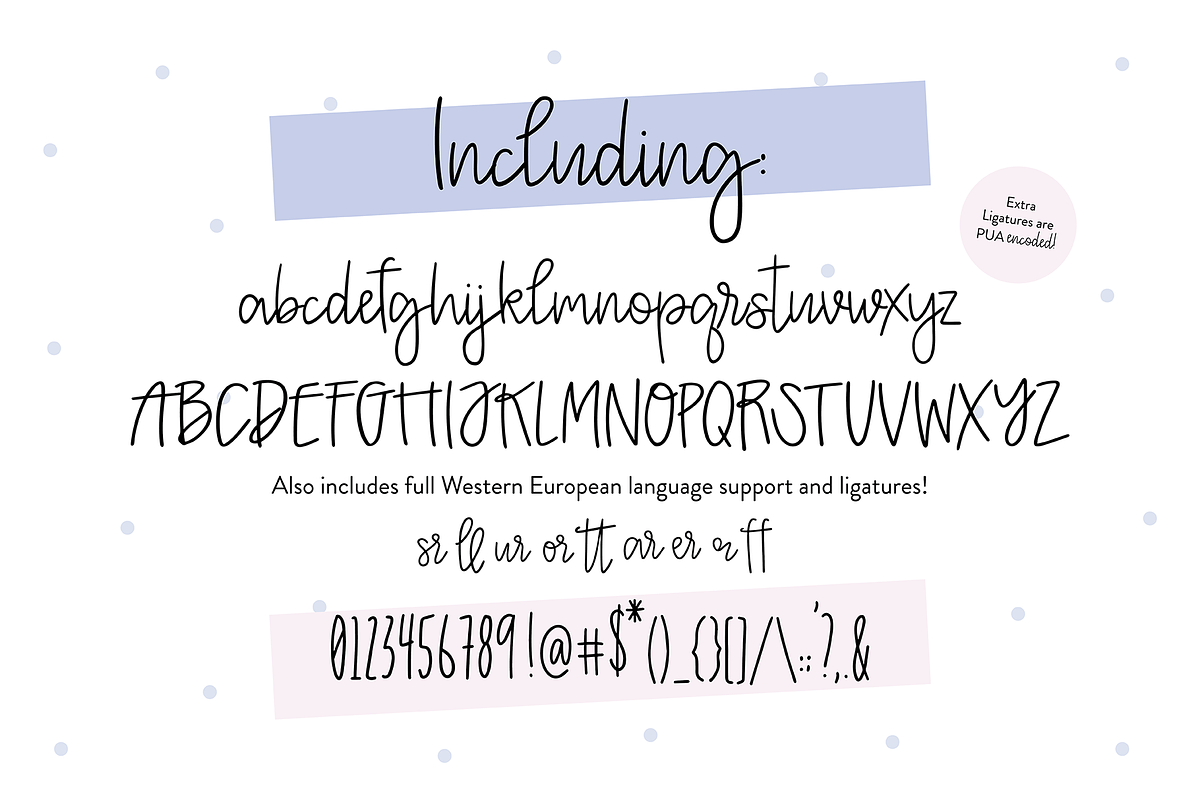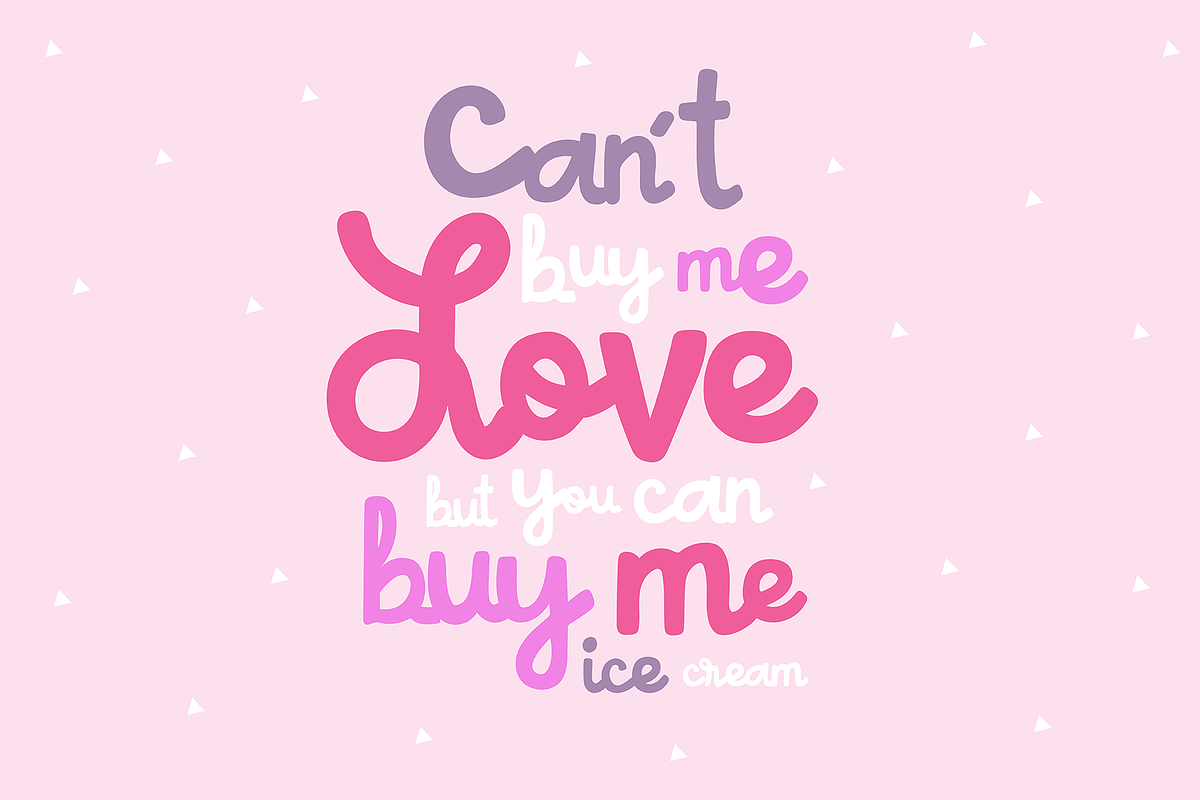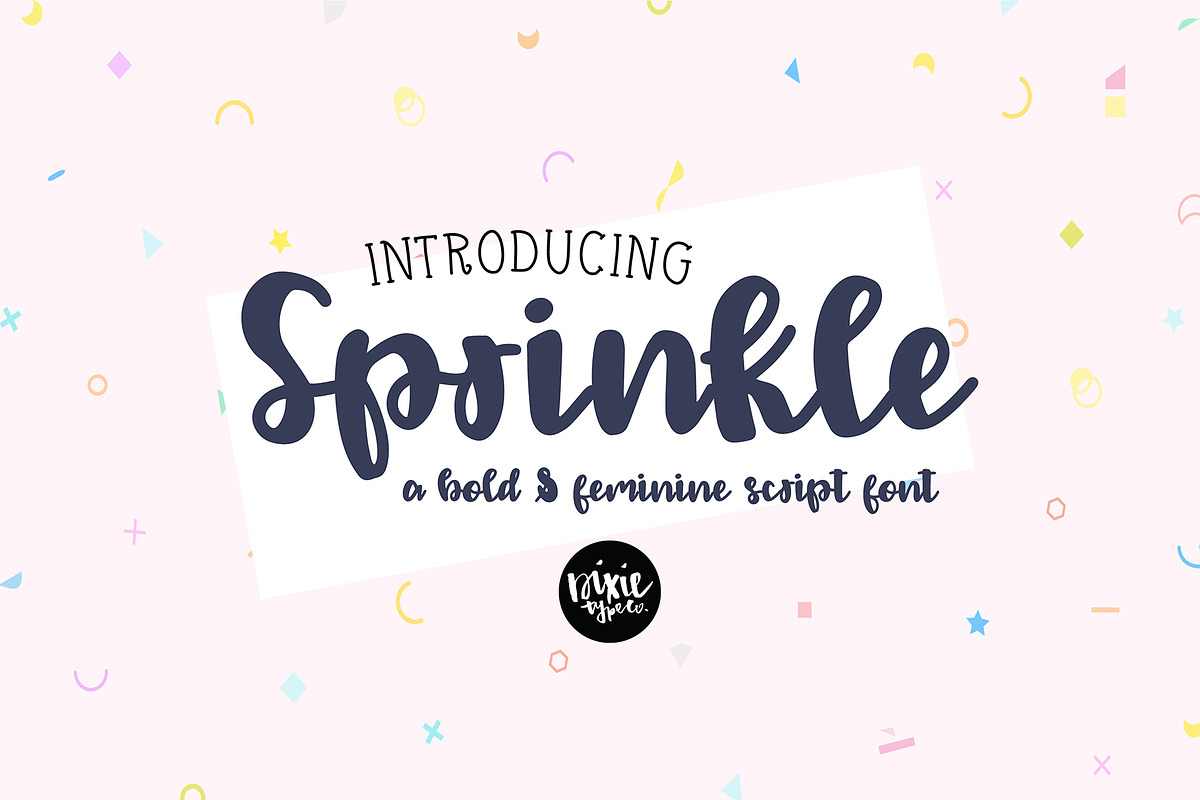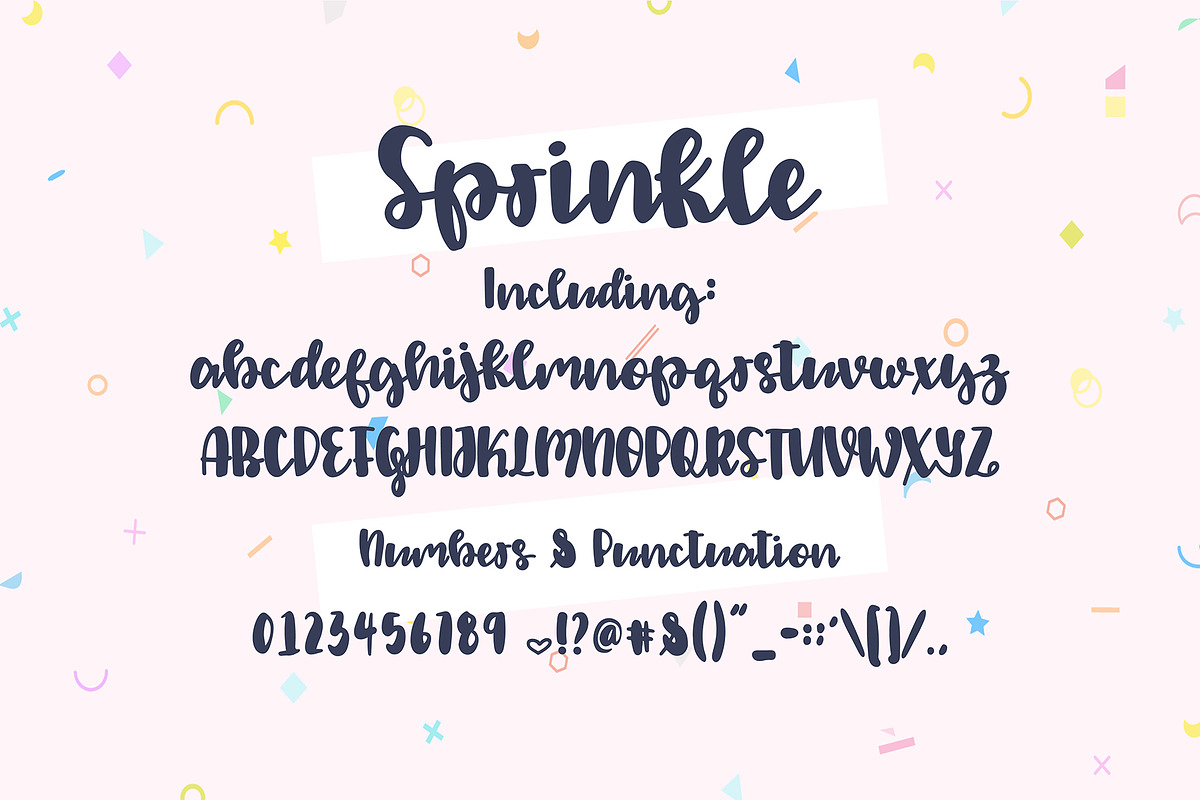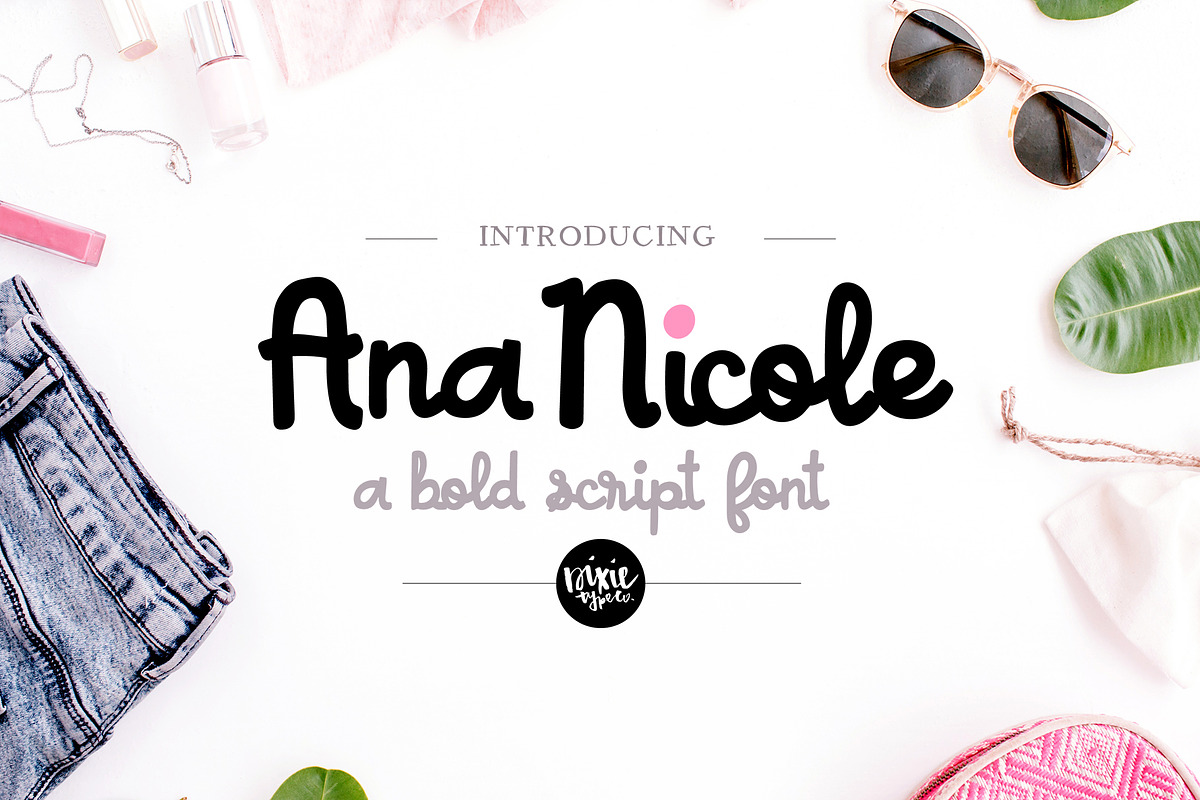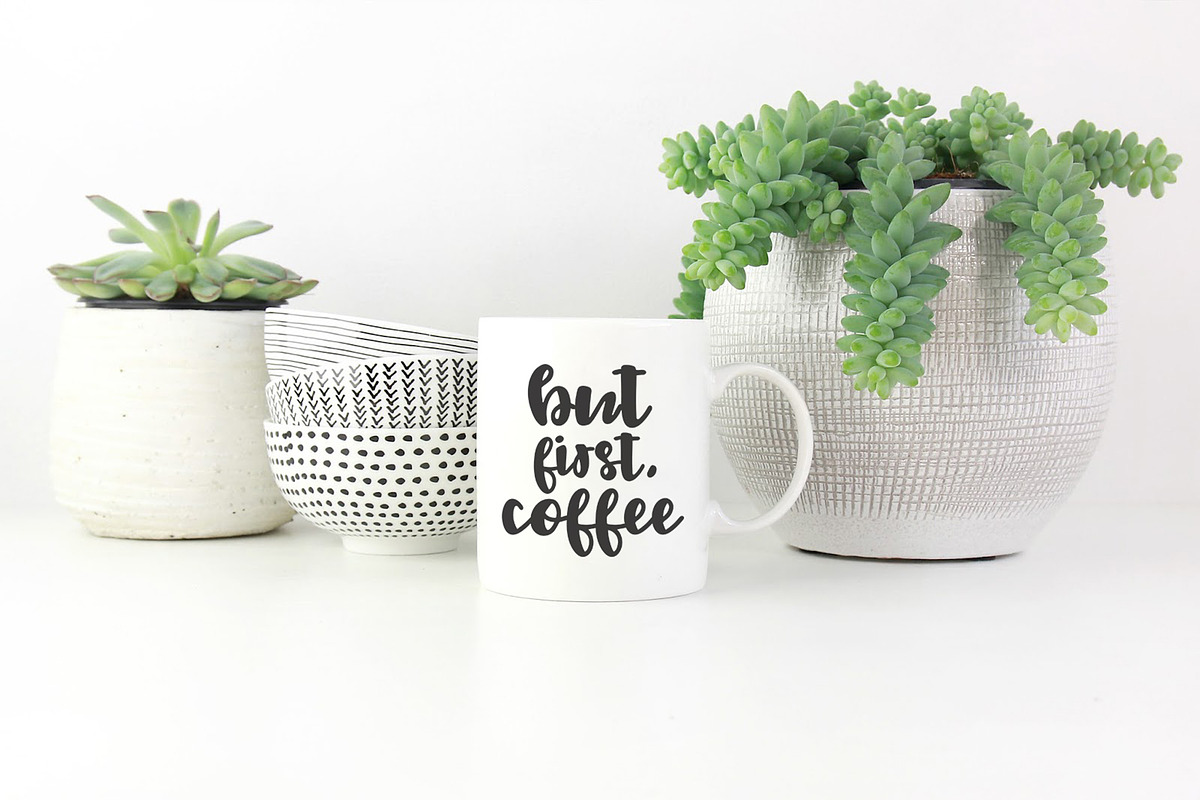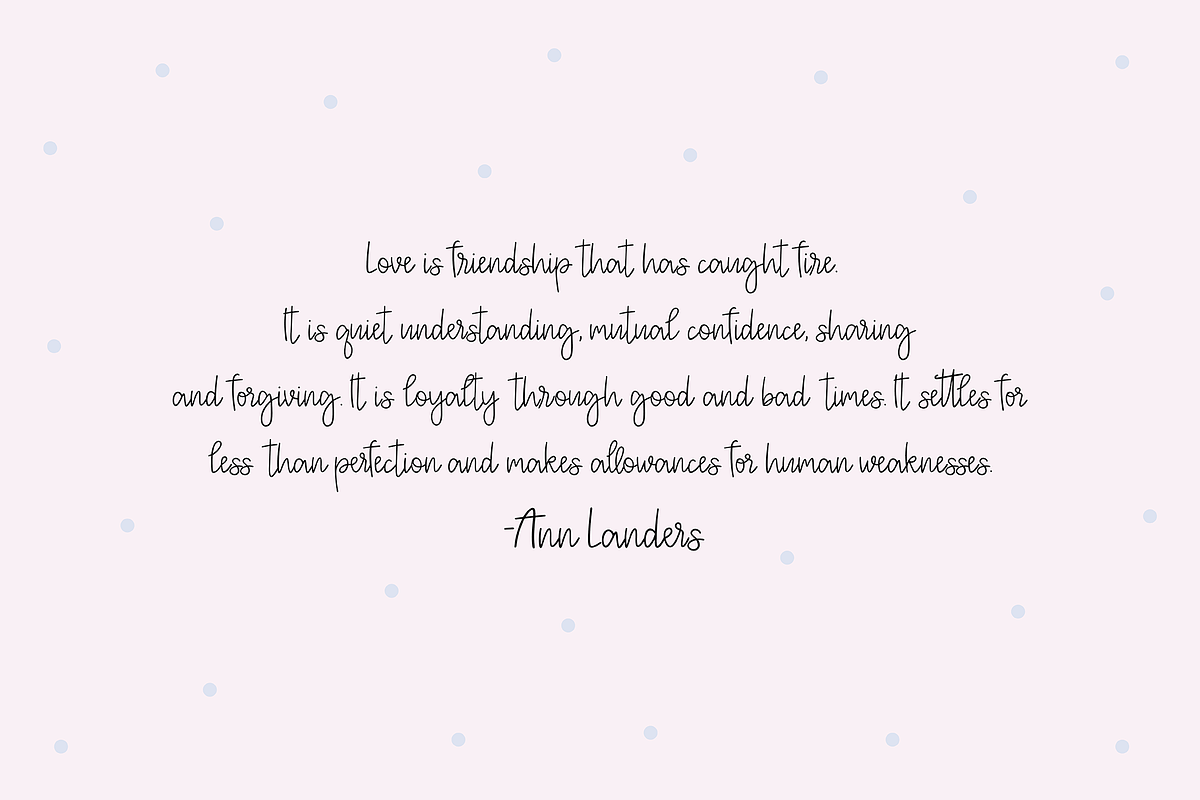
Bold Script Font Bundle of 4
These fonts were all HAND LETTERED with a brush and ink, or iPad Pro. :)
The 4 fonts included: Ana Nicole- Upper and lowercase, numbers, punctuation, language support Khloe-Upper and lowercase, numbers, punctuation, language support and ligatures Sprinkle- Upper and lowercase, numbers, punctuation Hadley Brush - Upper and lowercase, numbers, punctuation